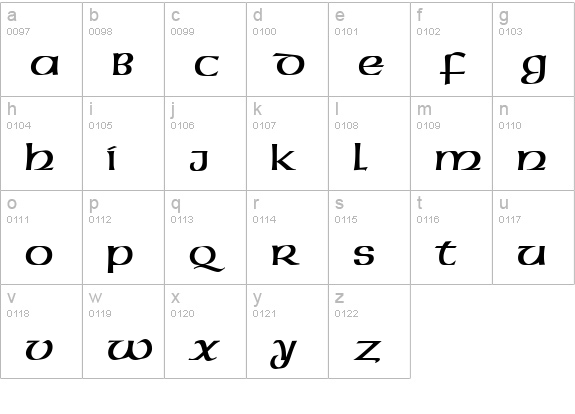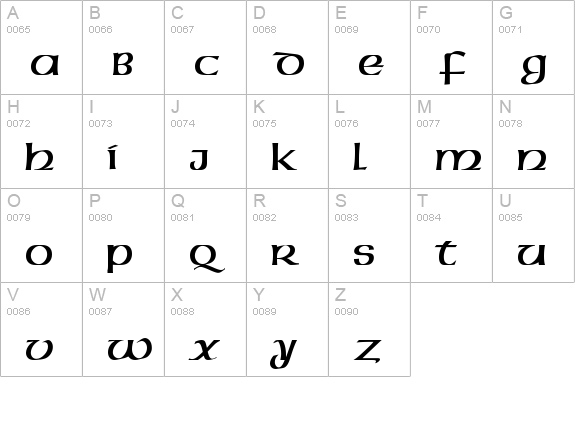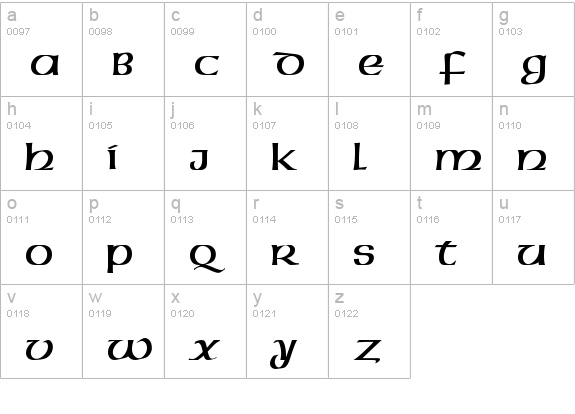
Uncial-Regular is the standard, neutral variant in the Uncial typeface family \xE2\x80\x94 well suited to general body text, paragraphs, and standard typographic work.
Uncial-Regular is a classic and elegant font that exudes a sense of ancient charm and sophistication. With its distinctive rounded letterforms and ornate details, this typeface is perfect for adding a touch of historical flair to your projects. Whether you're working on invitations, branding, or any other design project, Uncial-Regular will surely make a statement. The best part about Uncial-Regular font is that it is completely free to download at FontsMarket.com. This means you can easily access this beautiful typeface and use it in your creative endeavors without any hassle. Don't miss out on the opportunity to enhance your designs with the timeless beauty of Uncial-Regular font - download it today and let your creativity shine!